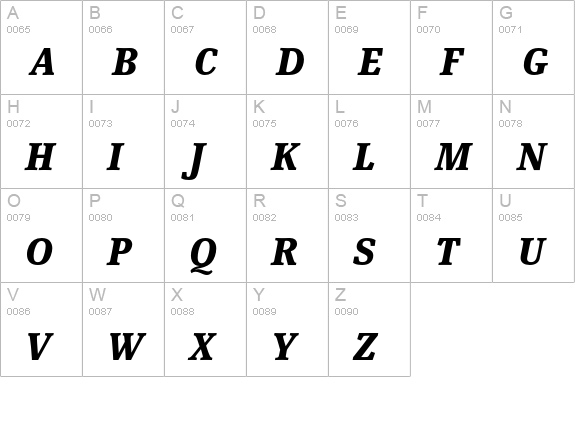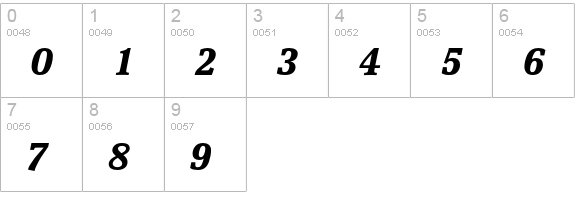
Scherzo Std Bold Italic Font Details
Scherzo Std Bold Italic is a strong, high-contrast, italic variant in the Scherzo typeface family \xE2\x80\x94 well suited to headlines, attention-grabbing titles, and strong calls-to-action.
Scherzo Std Bold Italic font is a stunning and expressive typeface that exudes elegance and sophistication. With its bold and italicized design, this font captivates the eye and adds a touch of flair to any project. The Scherzo Std Bold Italic font is perfect for creating eye-catching headlines, stylish logos, and attention-grabbing advertisements. Its unique combination of boldness and italics creates a dynamic and visually striking effect, making it a standout choice for designers who want to make a bold statement. One of the most remarkable aspects of Scherzo Std Bold Italic font is that it is freely available to download at FontsMarket.com. This means that you can easily access and utilize this stunning font without any cost or restrictions. Whether you are a professional graphic designer or a hobbyist looking to enhance your projects, this font offers you the opportunity to elevate your designs with its exceptional style and versatility. The Scherzo Std Bold Italic font is characterized by its clean and well-defined lines, ensuring legibility even at smaller sizes. Its boldness adds weight and impact to your text, while the italicized slant provides a sense of movement and sophistication. This font effortlessly combines classic and modern elements, making it suitable for a wide range of design applications. With its timeless appeal and remarkable versatility, Scherzo Std Bold Italic font is a must-have for any designer's font library. Its expressive nature allows you to experiment with different creative concepts, while its clean and professional appearance ensures that your designs will always look polished and refined. Take your design projects to the next level with Scherzo Std Bold Italic font. Download it for free at FontsMarket.com and unlock a world of possibilities for your typography. Whether you are designing a logo, creating a brand identity, or working on a print or digital project, this font will undoubtedly add a touch of elegance and sophistication to your designs. Get ready to captivate your audience with the mesmerizing beauty of Scherzo Std Bold Italic font.